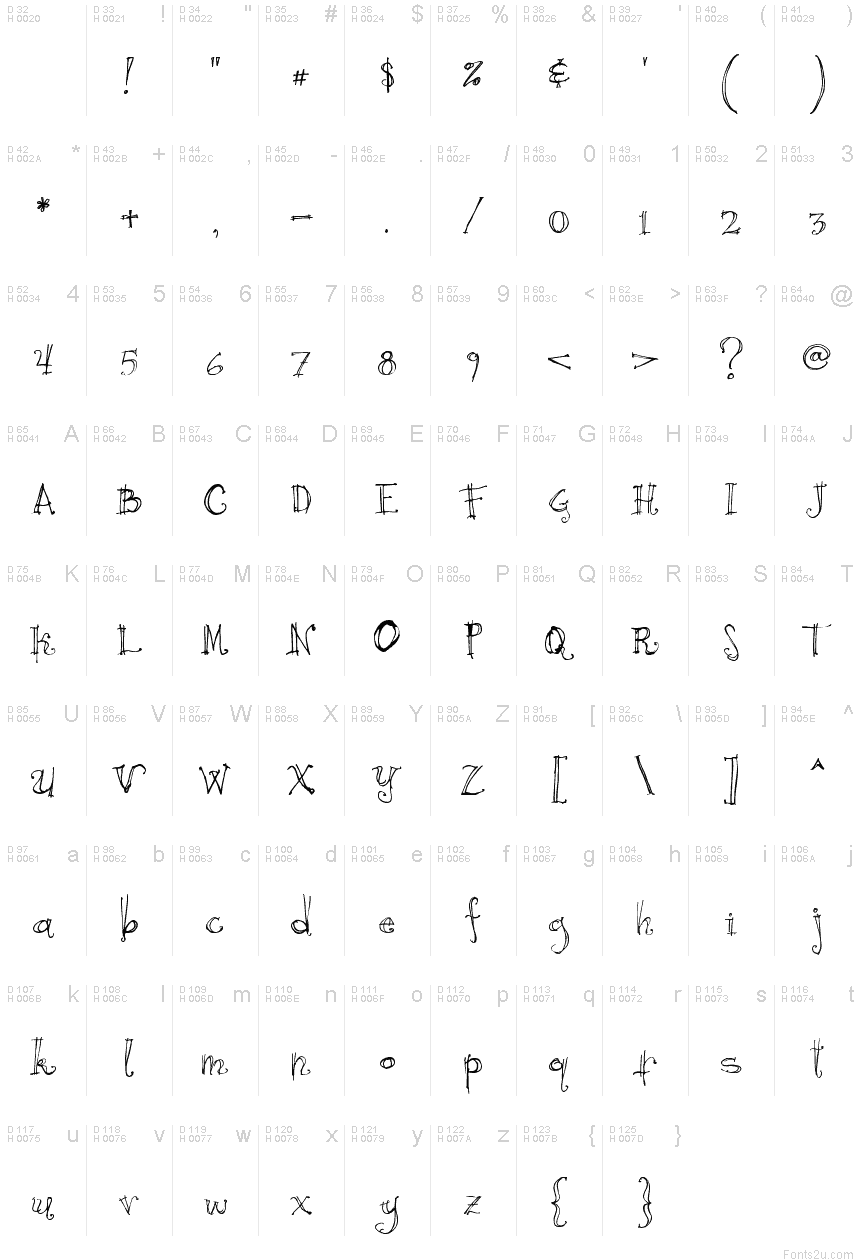
Cricket
Cricket font by Amy Conger is a free handwritten typeface with a wonderfully spindly, storybook personality. Tall, twig-like letters wobble just enough to feel human, while the inky curls and loops at the ends add a playful, slightly mischievous twist. It looks like it was drawn with a scratchy pen on textured paper—light, airy, and a bit eccentric, without ever becoming hard to read.
Using Cricket, this free font comes alive in children’s book covers, whimsical party invitations, seasonal posters, teacher printables, craft packaging, and quirky branding for boutiques or handmade goods. It shines at larger sizes where the curls and irregular lines can really show. Pair this handwritten font with a clean, neutral sans serif in small text to keep layouts charming but still readable.